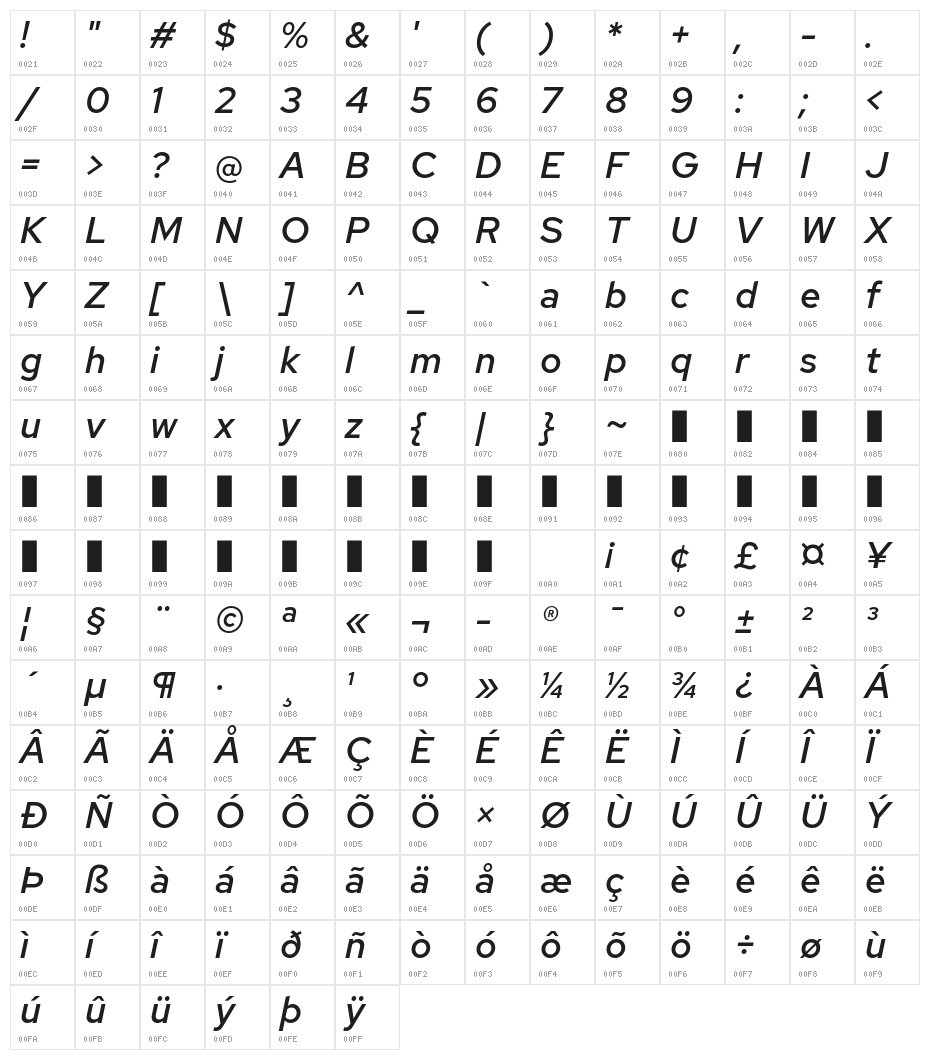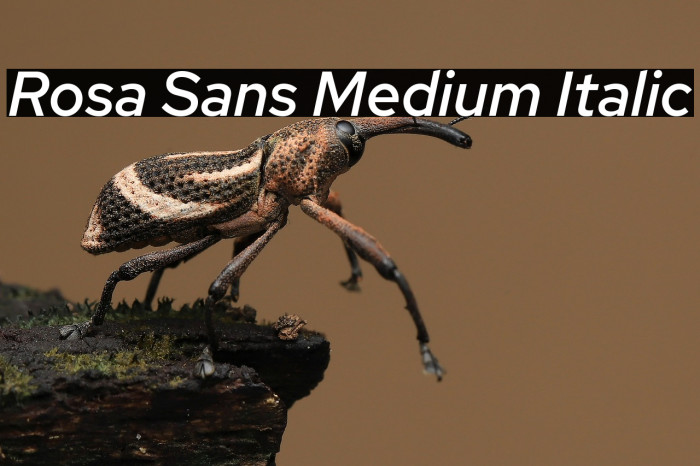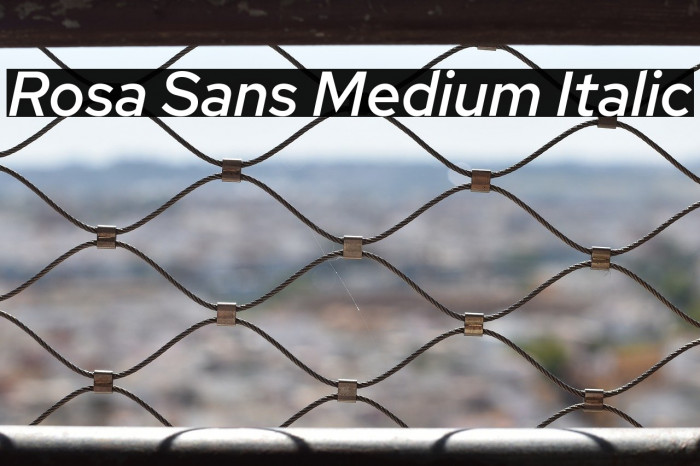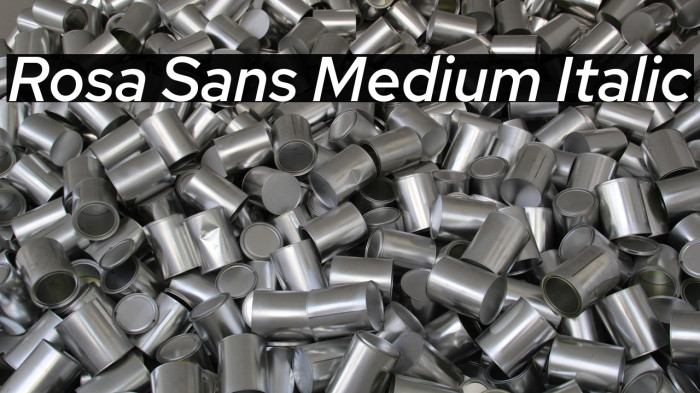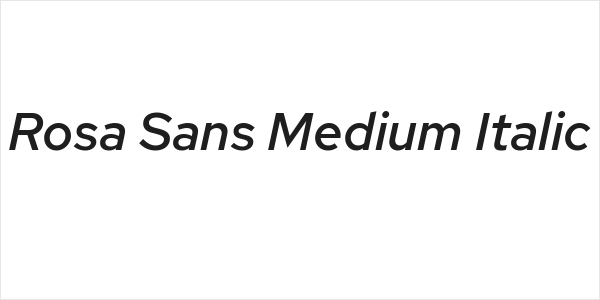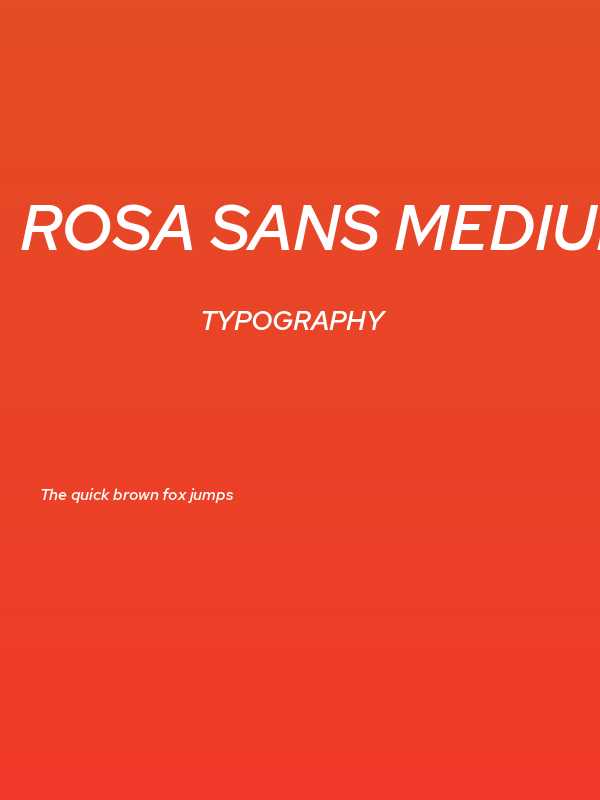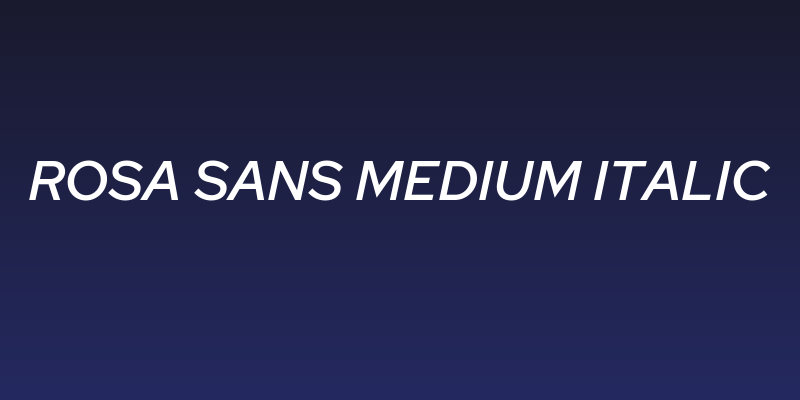
Rosa Sans Medium Italic Font
Rosa Sans Medium Italic Description
This font features a clean and modern sans-serif style with a medium weight and italic slant. The characters are well-defined with smooth curves and a slight forward tilt, giving it a dynamic and contemporary appearance. The uppercase letters are bold and assertive, while the lowercase letters maintain a consistent flow, enhancing readability. The numerals are clear and proportional, matching the overall aesthetic. Special characters are distinct and harmonize well with the rest of the set, making it versatile for various design needs.
| Proposed Projects | Ideal for branding, advertising, digital media, and editorial design projects. |